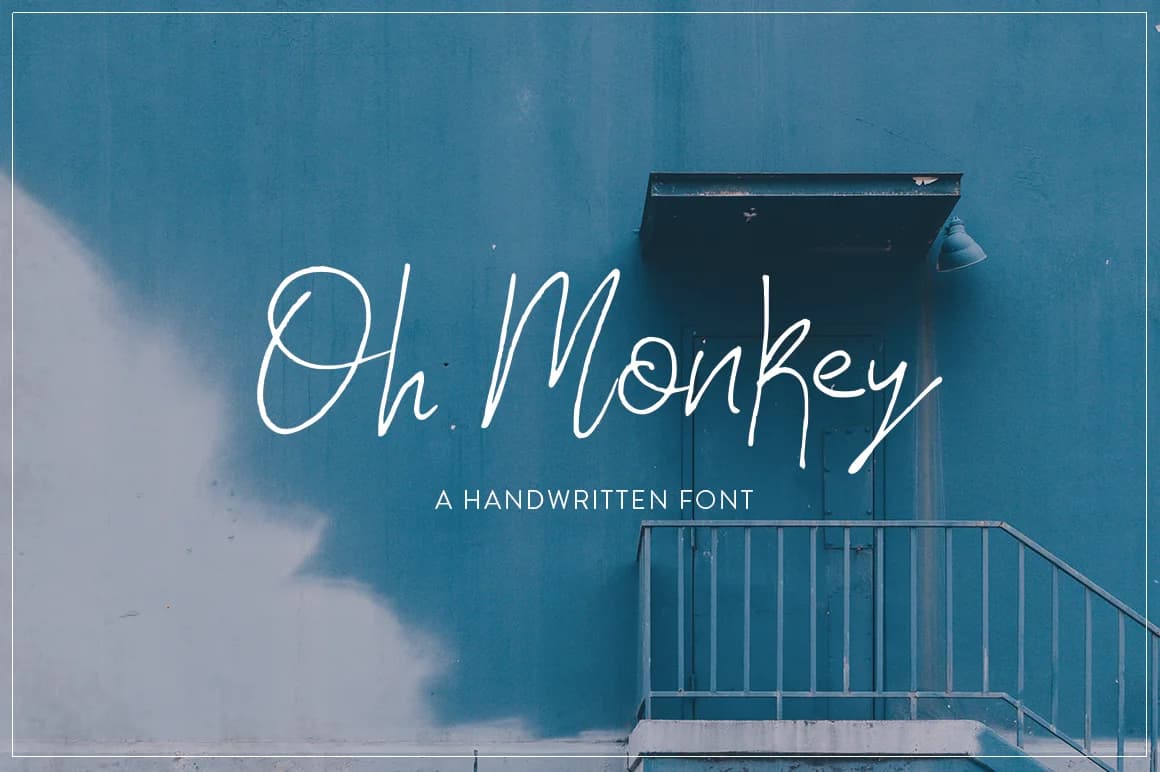
Oh Monkey by Salt and Pepper Fonts is a hand-drawn monoline script that captures the casual energy of personal handwriting. The flowing letterforms carry an organic, authentic quality, with each character displaying subtle variations that mirror the natural inconsistencies of human penmanship. This distinctive character creates an inviting, signature-like appearance that draws viewers in and establishes an immediate sense of personality and charm.
The font excels for wedding invitation suites where handwritten warmth feels appropriate and memorable, and works equally well for boutique skincare packaging that emphasizes artisanal appeal and craftsmanship. Etsy product labels benefit from Oh Monkey's distinctive character, particularly for categories like handmade stationery, gift items, and specialty goods. DIY craft signs and personal brand identity projects also showcase this script beautifully, allowing small makers and creative entrepreneurs to establish a recognizable visual voice. The monoline construction ensures clean, legible results across different sizes and applications.
What makes Oh Monkey particularly valuable is its ability to bridge formal and casual contexts. Whether you're designing custom greeting cards, social media graphics for creative brands, or packaging for artisan products, this script brings authenticity and individuality to your work. Discover Oh Monkey on Creative Fabrica and add this charming, hand-crafted script to your font library.
Oh Monkey Font is a script font that shines as a display or heading face. Pair it with a clean sans-serif or serif font for body text β the contrast creates a clear hierarchy while the two styles stay balanced and easy to read.